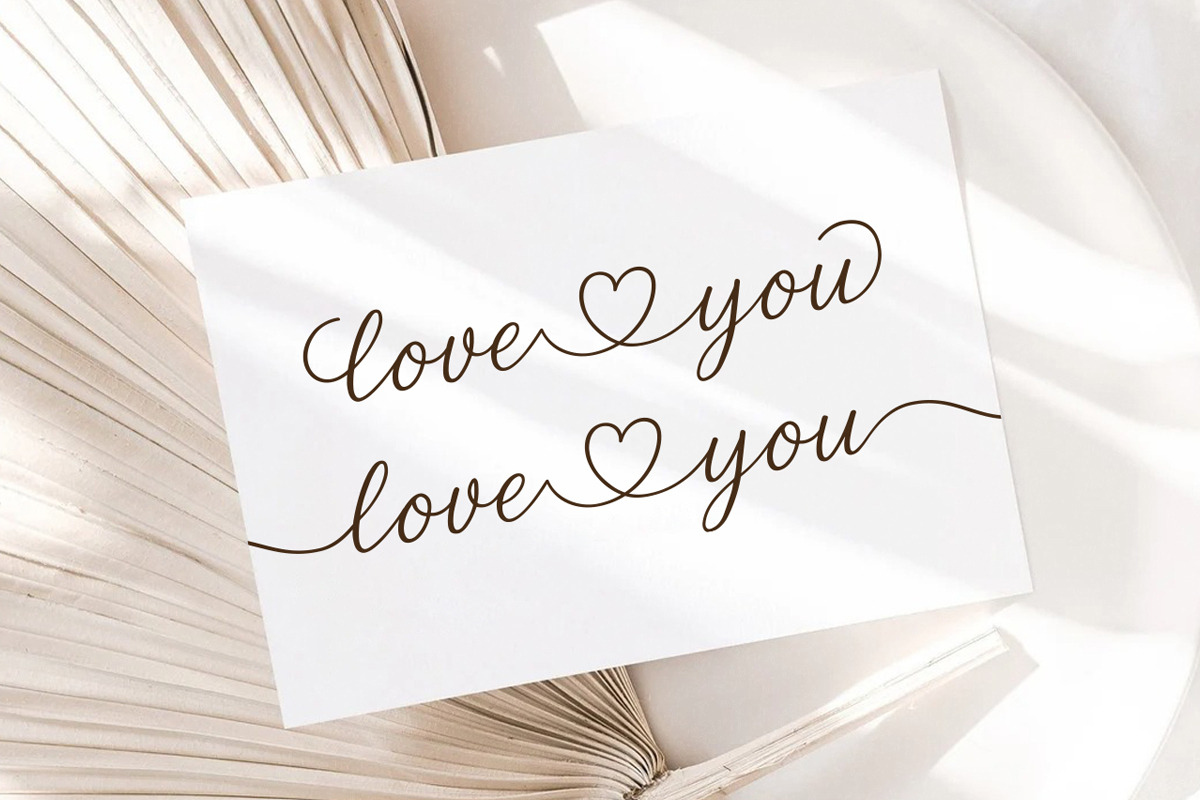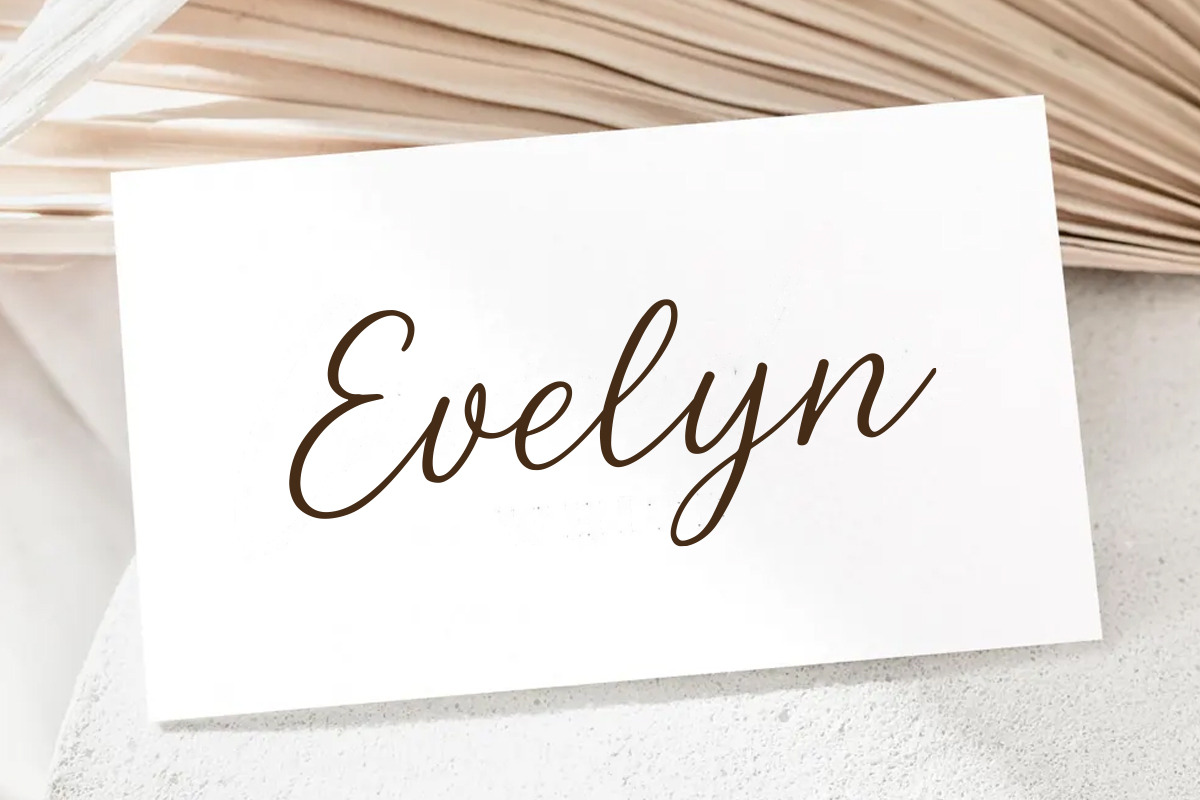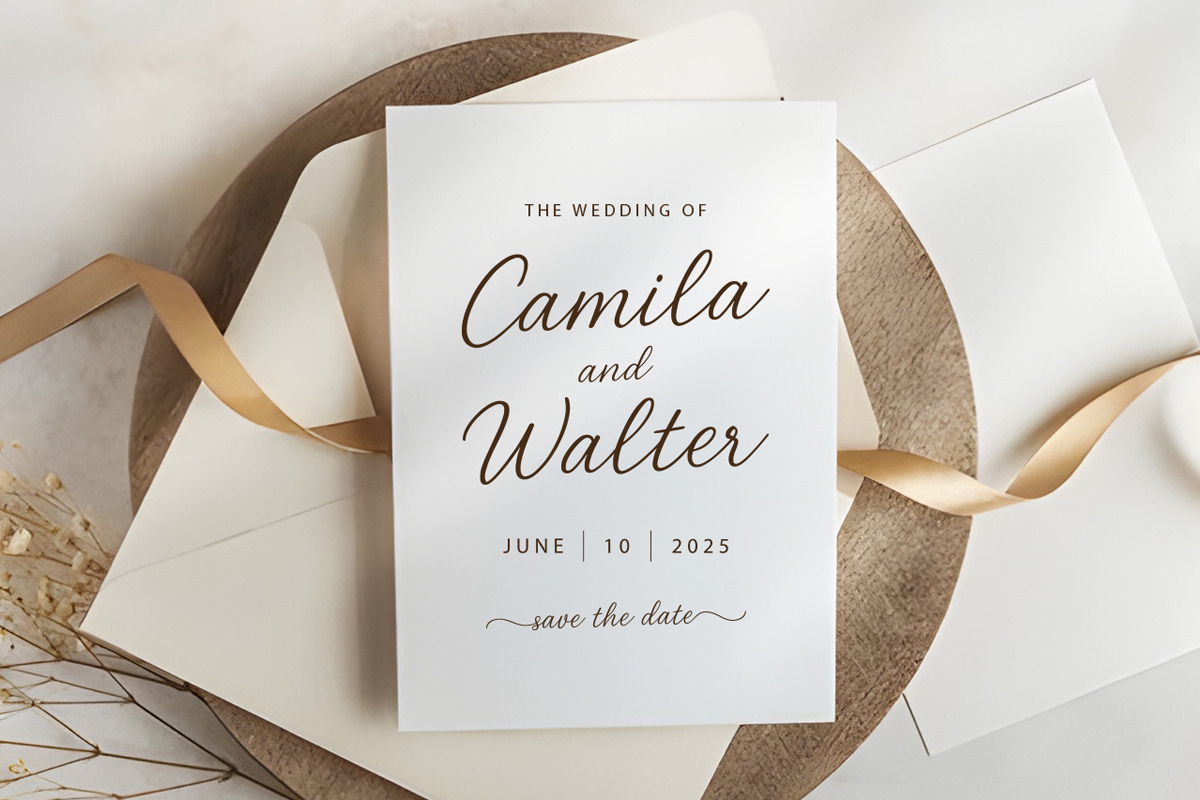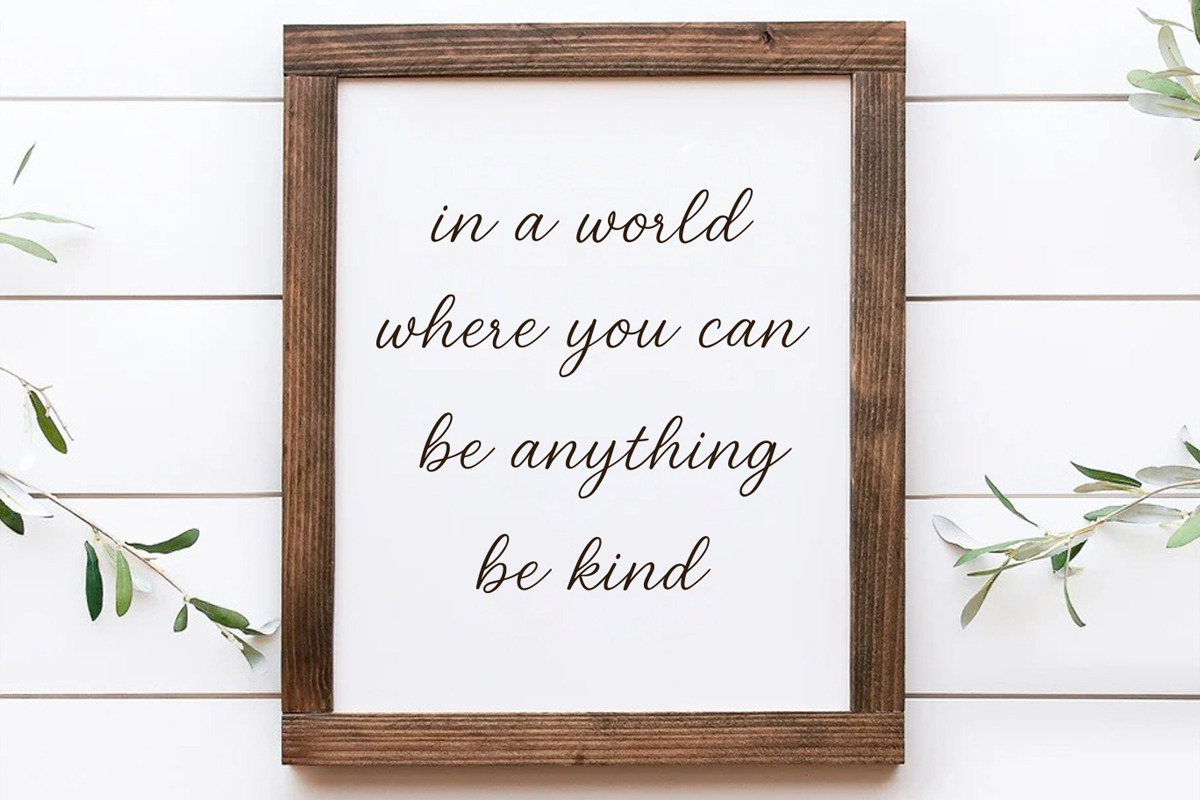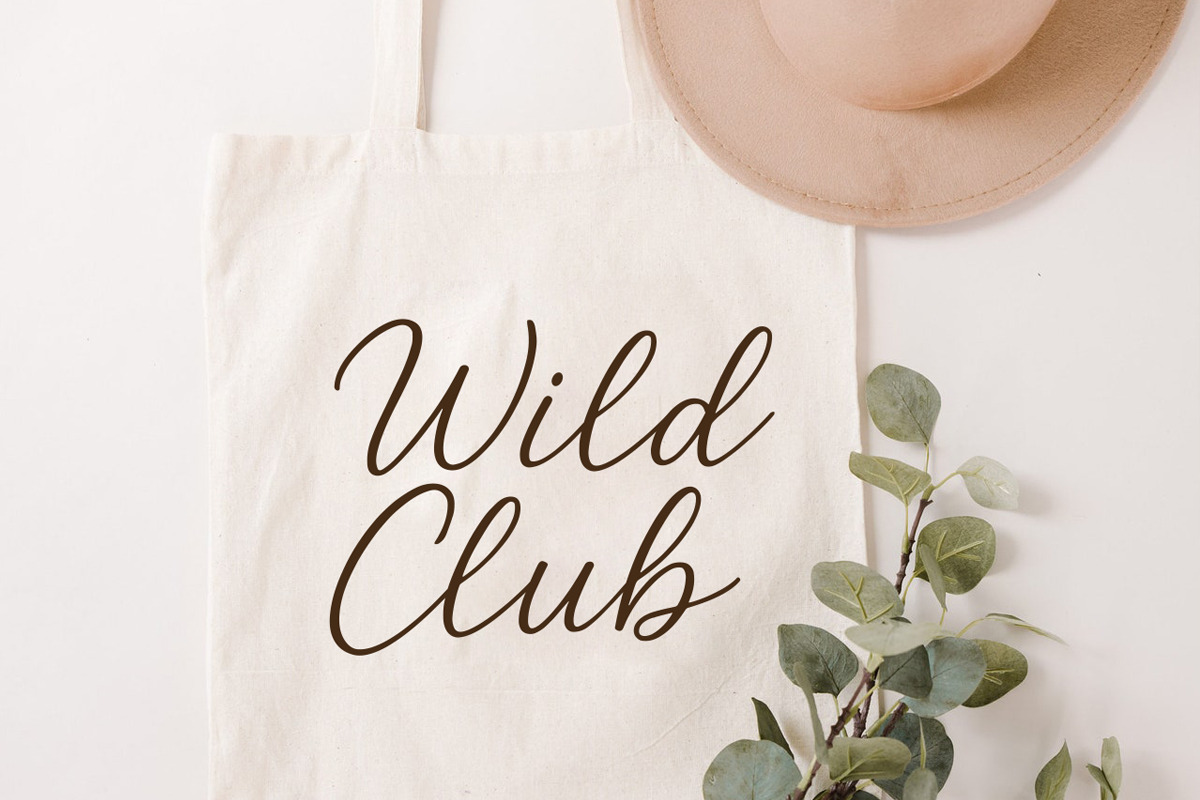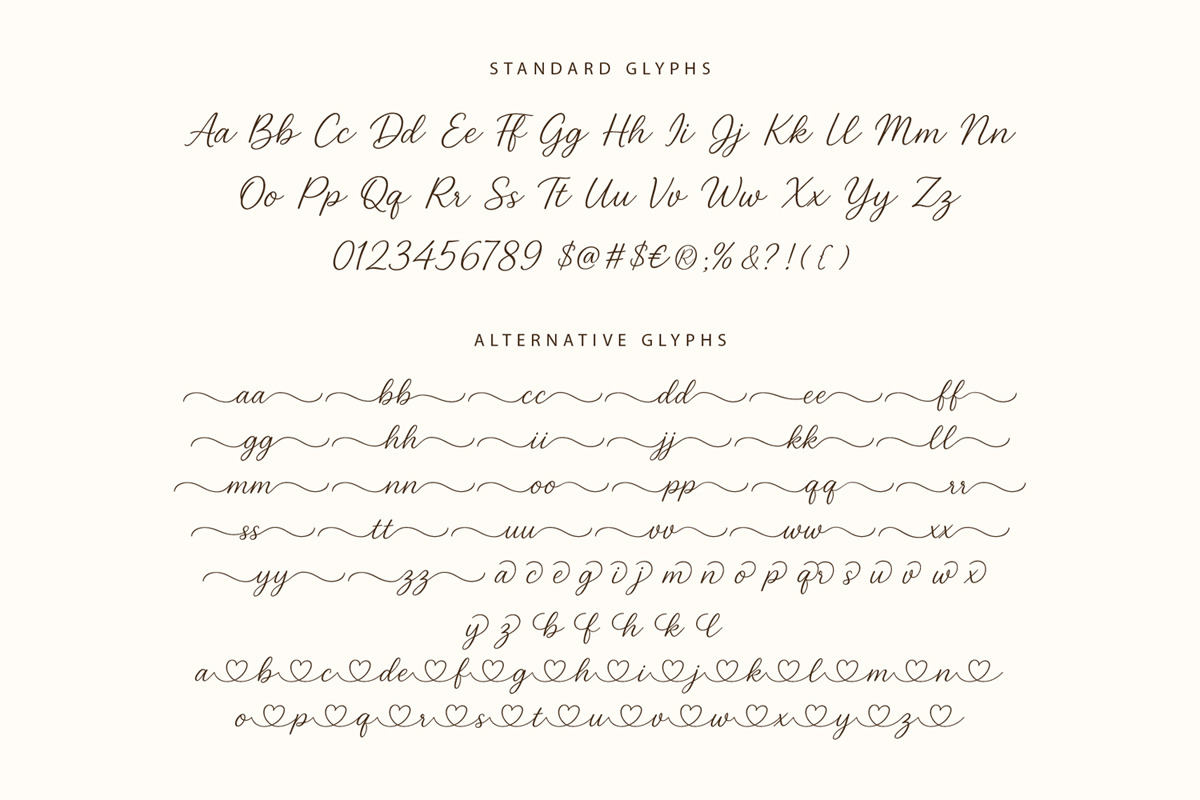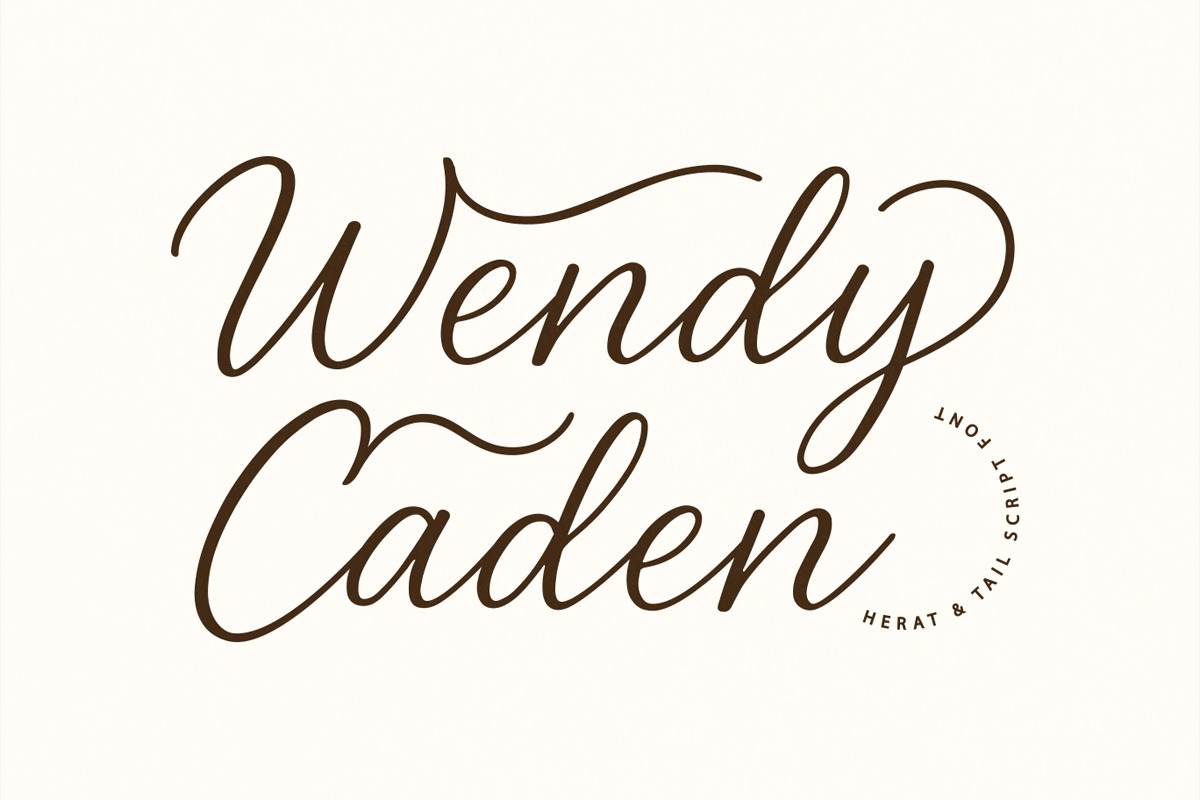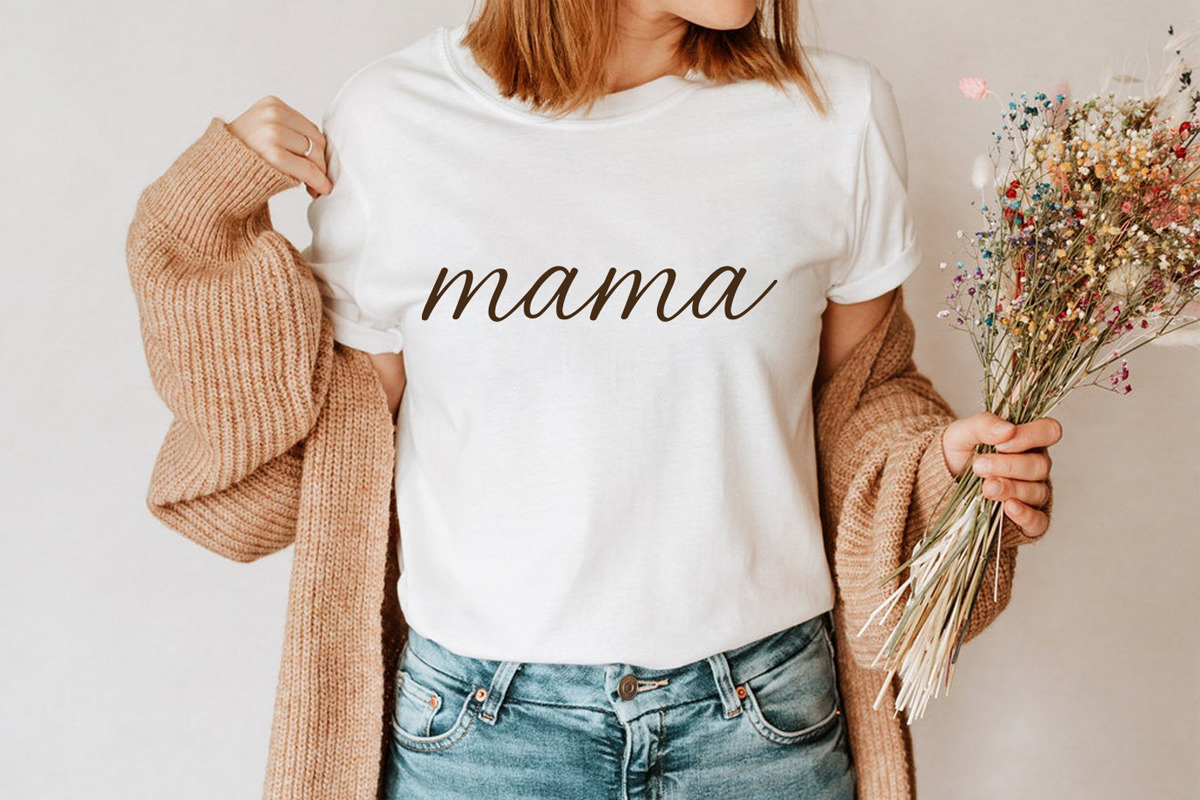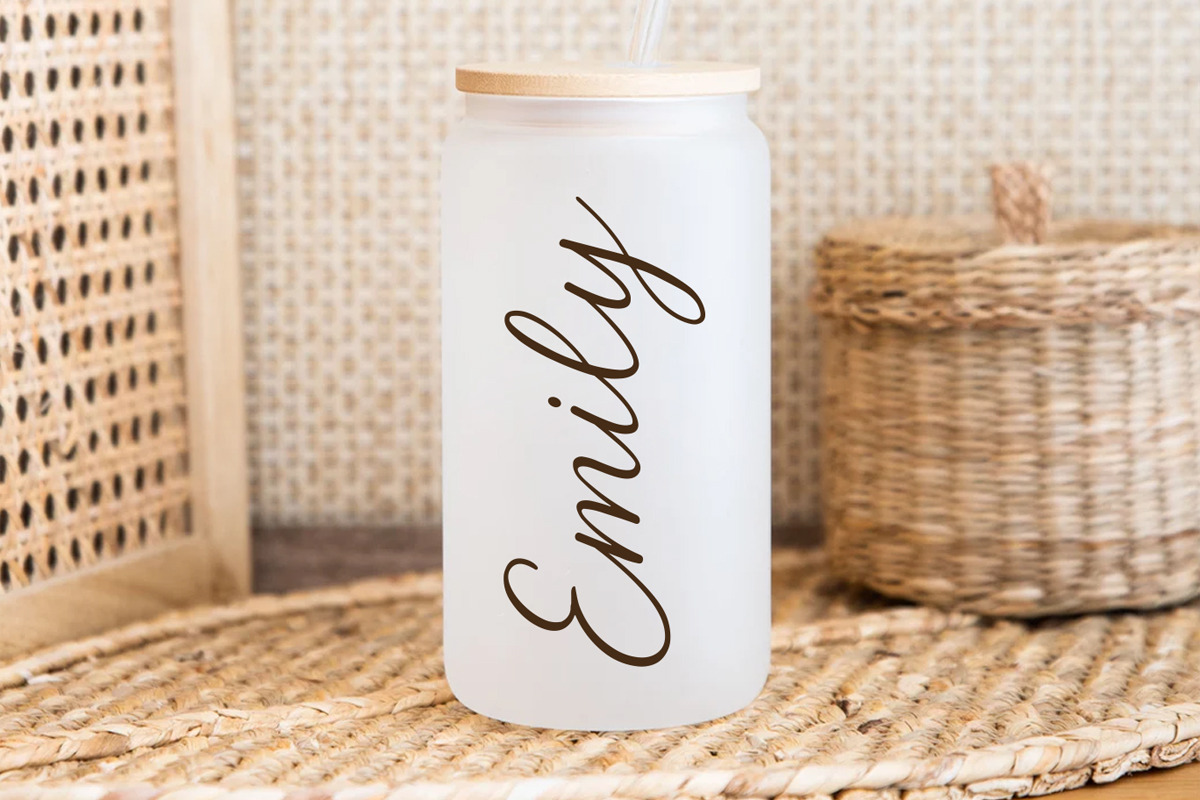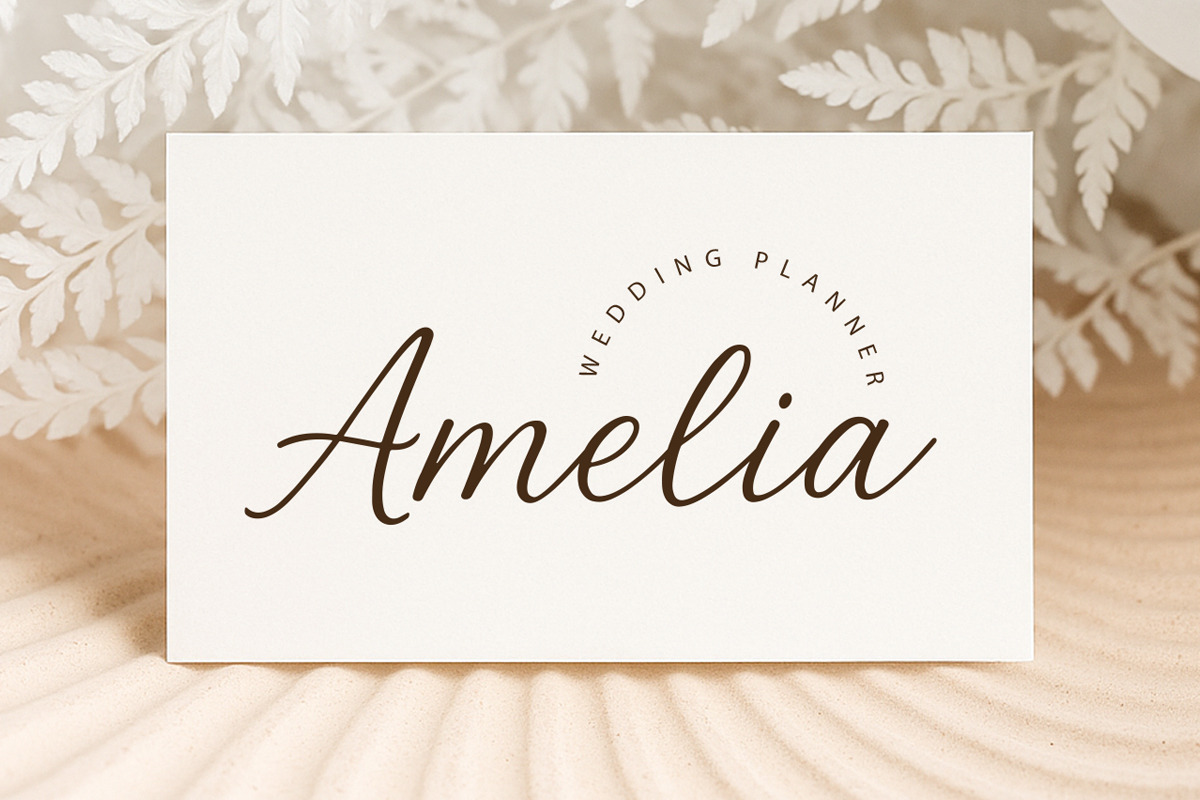
Wendy Caden - Lovely Heart Font
Wendy Caden is a romantic and sweet calligraphy typeface with characters that dance along the baseline. It will add a luxury spark to any design project that you wish to create! This font is PUA encoded which means you can access all of the amazing glyphs and ligatures with ease. Add it to your most creative ideas, and notice how it makes them come alive!